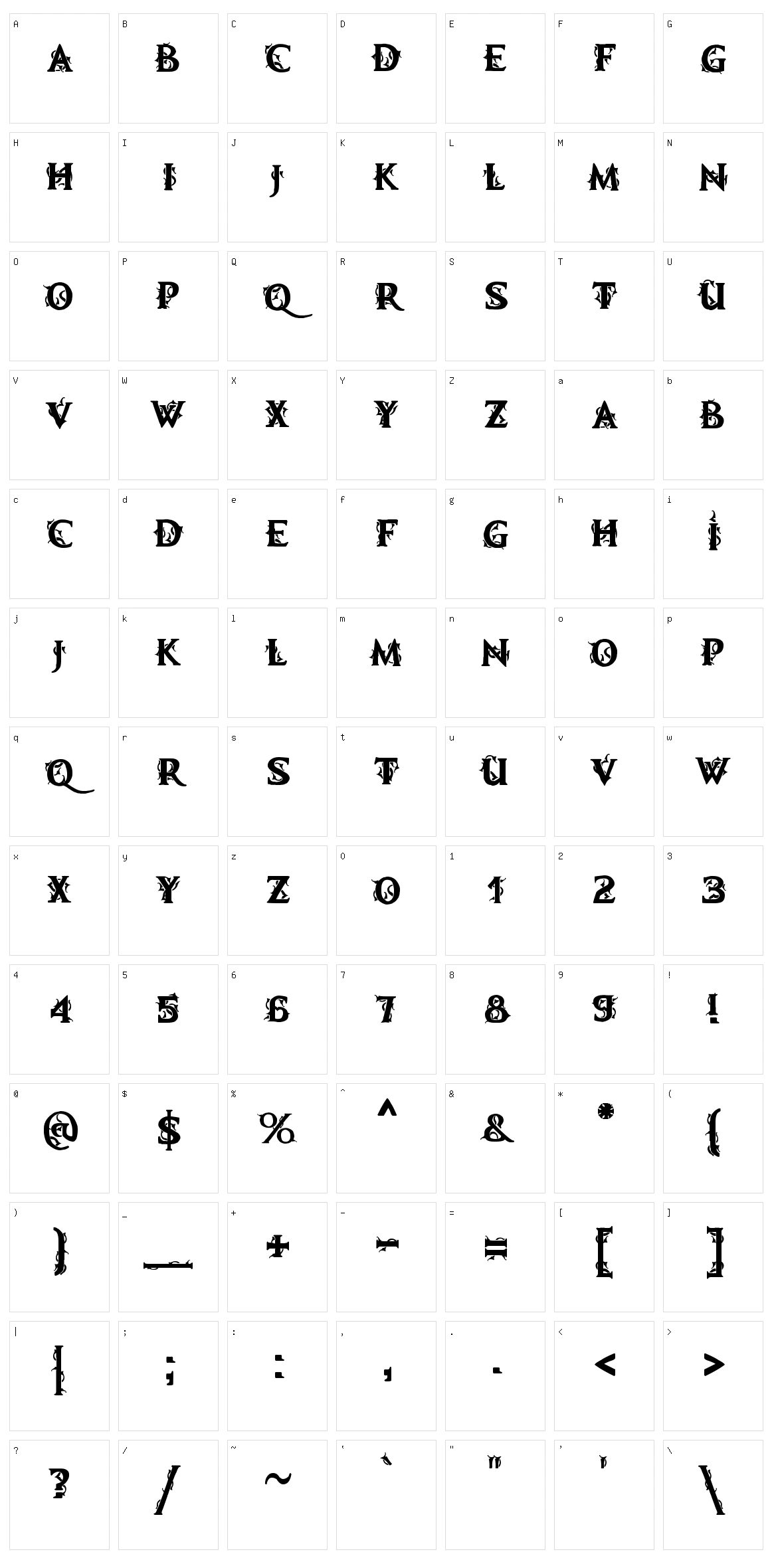
The free font MB Demonic Tale is carefully designed by Irina ModBlackmoon, showcasing a thoughtful balance of creativity and usability and belongs to the Gothic font family. When you download the ZIP file, it contains only 190.28 KB of font files, making it lightweight and quick to download. Please review the license details below to understand permitted usage and distribution rights. If license information is not available, we recommend using this font for personal projects only or contacting the author directly for commercial usage permissions.